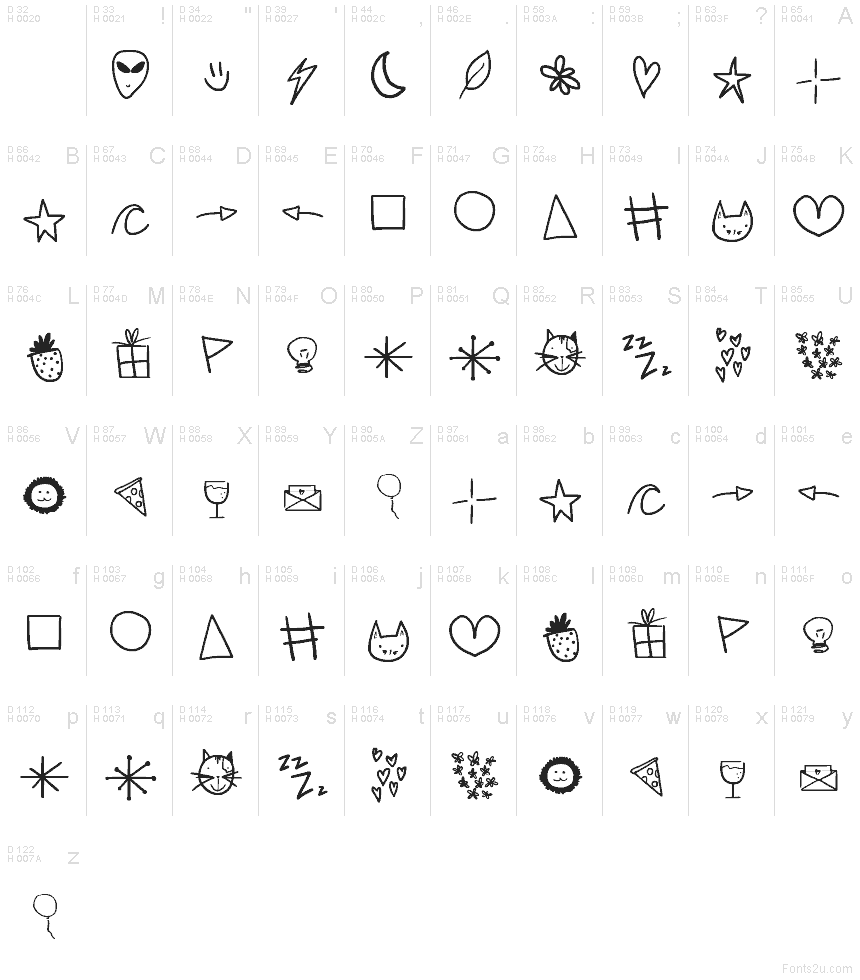
Rinosaurio Regular
Rinosaurio font by Tat Rock is a free dingbat typeface that solves a familiar crunch: you need playful doodles fast, without hiring an illustrator. Its inky, scribbled icons-sleepy Zzz, beaming lightbulbs, whiskered cat faces, spiky bursts, and scratchy hashtags-feel like they were dashed in the margins of a notebook. The linework is wobbly in the best way, giving layouts a breezy, human touch that reads as spontaneous, not stock.
Using Rinosaurio, you can drop instant personality into classroom printables, kids’ party invites, zines, social posts, handmade packaging, bullet journals, and thumbnail graphics. The icons stack and repeat nicely, so borders and section breaks come together in seconds. This free font works beautifully with a clean rounded sans-set text small and let the doodles pop larger for emphasis.